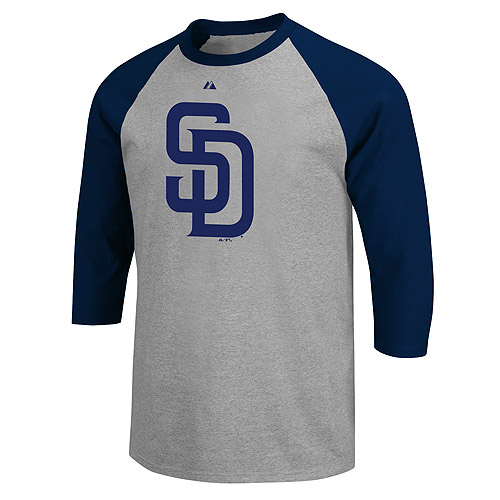
Font ID Please - SD Padres Logo Text
I am creating little league t-shirts for my kids and can't find the "SD" logo in vector format for the San Diego Padres Baseball Team. I've looked on all of the websites I can think of and none of them have just the "SD" text for the hat/helmet/etc. Can anybody point me in the right direction?:thankyou:
Sorry, don't have any info but it looks like you should be able to do something similar yourself rather than spending too much time looking for this exact one. I would just take a font with a similar foundation (maybe a version of SquareSlab?) and tweak it so it looks close to this one. Should be 5-10 minutes tops to finished product. :)